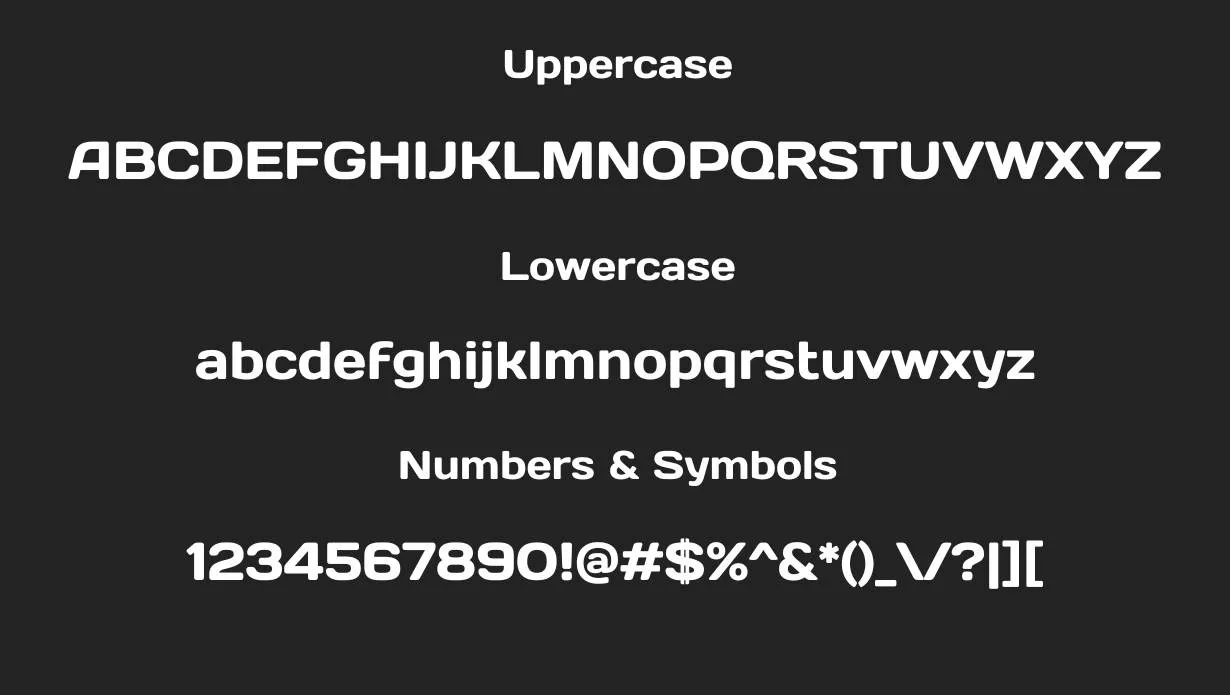
Days Font is like a well-organized calendar for your words, introducing a simple style to your writing. Perfect for projects where you want your words to be presented cleanly and efficiently, this font is like having a neat and tidy schedule for your writing.
It ensures that your words are clear, readable, and easy to follow. Days Font is simplicity at its best, making your words stand out with an organized charm that resonates with clarity and efficiency.